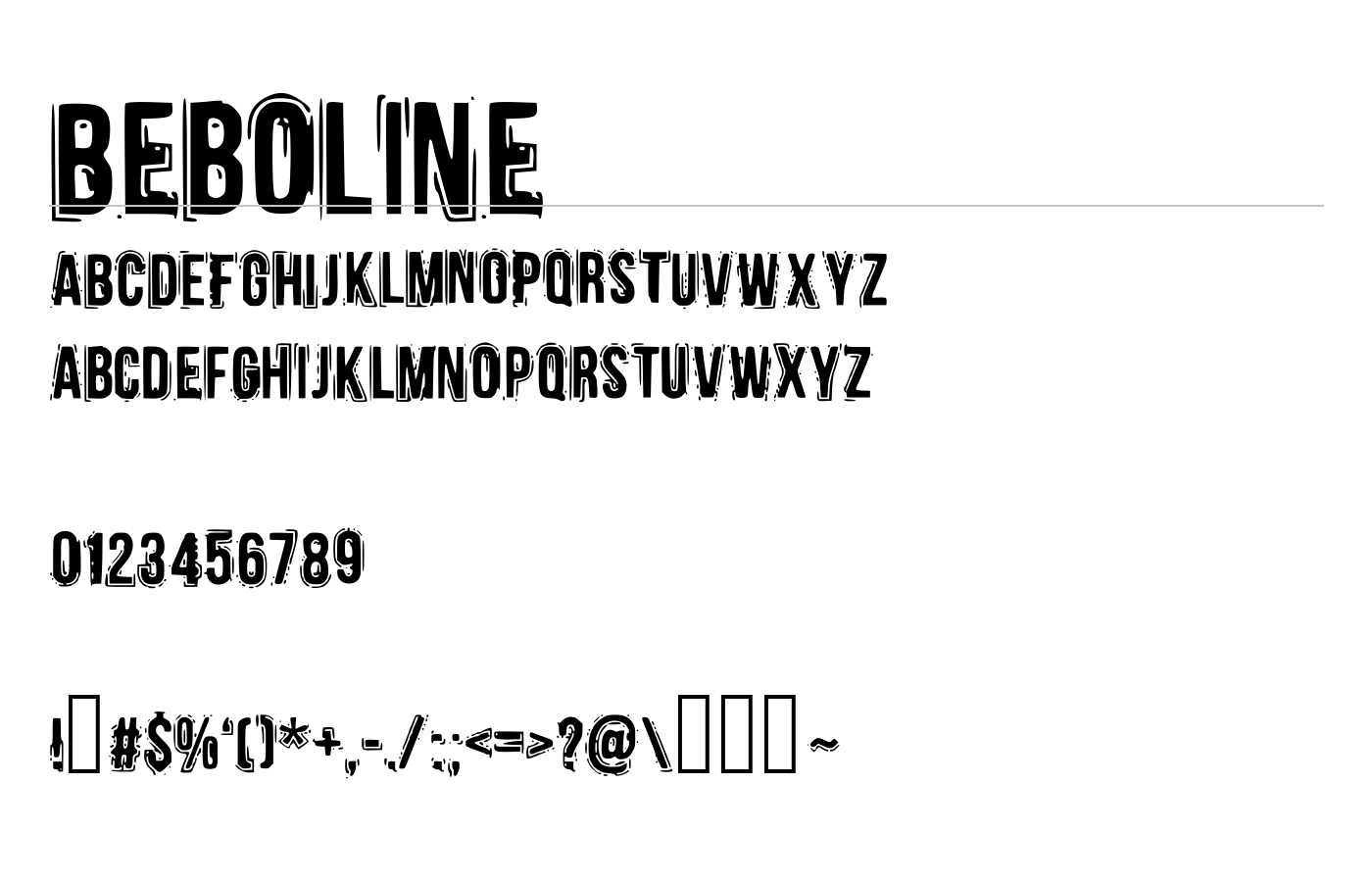
Beboline is a bold, condensed sans serif font with a distressed, textured look that gives it a vintage and edgy character. Its tall, narrow letterforms and rough details make it ideal for eye-catching headlines and creative designs that want to convey a rugged, industrial, or retro vibe. This font works well in posters, branding, and packaging where a strong, unconventional style is desired.
Beboline Font
About Beboline Font